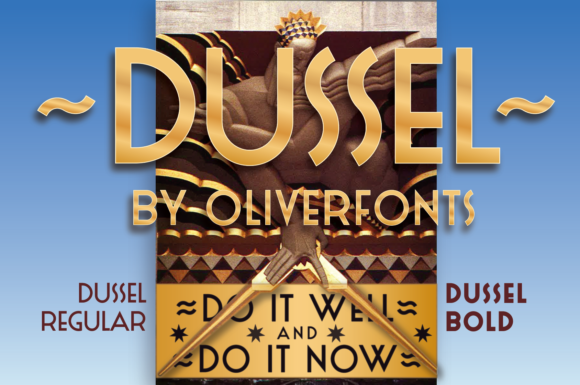
Unleash the captivating elegance of Dussel, the modern, sans serif font that embodies sophistication and allure. Crafted with the utmost attention to detail by the renowned OLIVERFONTS, Dussel promises to bring your creative visions to life with its incredibly versatile style.
Indulge in the boundless possibilities of Dussel, the font that empowers you to create breathtaking invitations that leave a lasting impression. Its bold and sleek lines lend an air of exclusivity to every letter, ensuring that your words command attention and captivate hearts.
Let Dussel elevate the aesthetics of your stationary art, transforming it from ordinary to extraordinary. The font's inherent grace effortlessly enhances the beauty of your designs, adding a touch of timeless elegance that will leave your audience spellbound.
Harness the power of Dussel to create social media posts that demand attention and ignite engagement. Its sharp and distinctive letterforms cut through the digital clutter, ensuring that your messages stand out from the crowd. Unleash your creativity and craft posts that resonate with your audience, leaving them captivated and inspired.
With Dussel at your disposal, the realm of design becomes your playground. Experiment with different techniques, push boundaries, and create masterpieces that reflect your unique style. Whether you're a seasoned designer or just starting your creative journey, Dussel is the perfect companion, guiding you towards design excellence.
Embrace the allure of Dussel, a font that transforms your words into works of art. Its versatility knows no bounds, and its ability to evoke emotion is simply magical. Experience the joy of creating designs that captivate, inspire, and leave a lasting impression on all who behold them. Transform your creative dreams into reality with Dussel, the font that awakens your soul and ignites your passion.